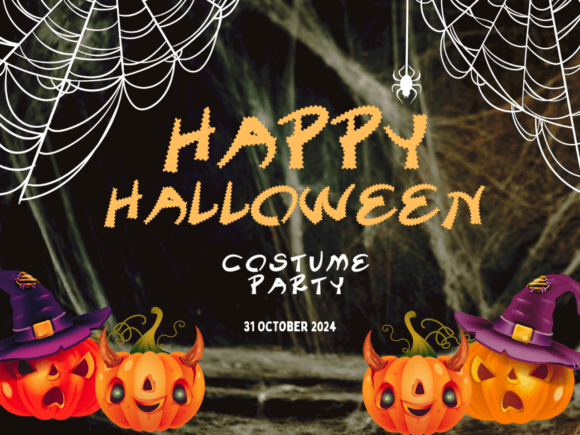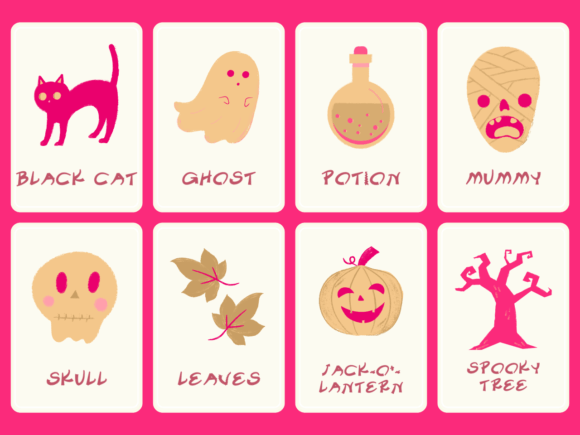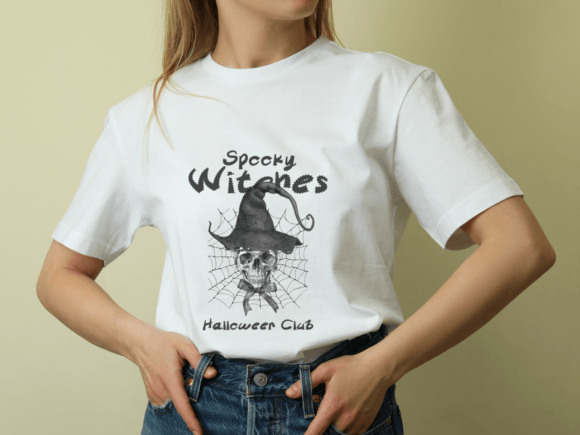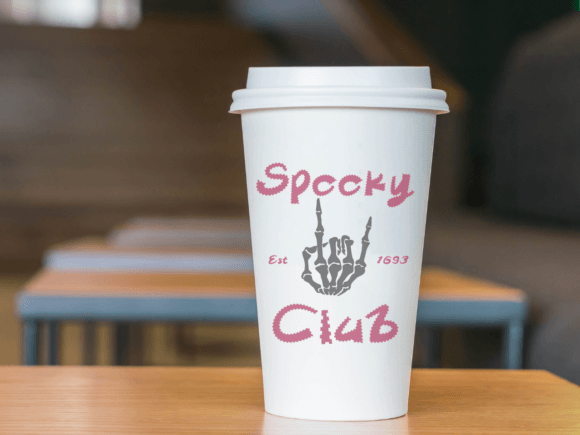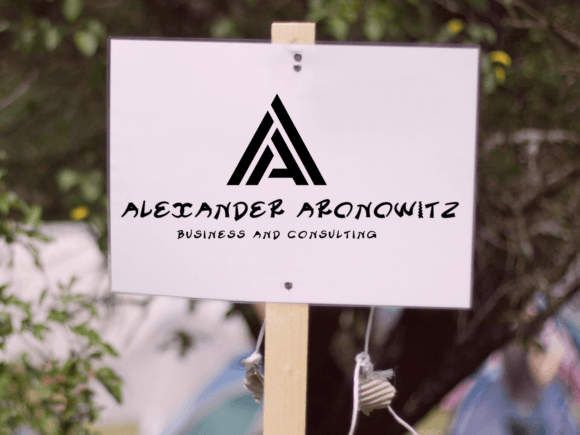
Introduction to Machiko Font
Have you ever been working on a creative project, and you just can’t seem to find the right font to bring your design to life? You’ve scrolled through countless design resources, downloaded free fonts, and tried out high-quality fonts, but nothing seems to fit the vibe you’re going for. That’s where the Machiko Font comes in – a quirky and versatile display font that’s sure to add a touch of personality to your next project.
With its unique blend of elegance and playfulness, the Machiko Font is perfect for designers who want to add a bit of whimsy to their designs. Whether you’re working on a branding project, a website, or a social media campaign, this font is sure to make a statement. And the best part? It’s available for free download, making it a valuable resource for designers on a budget.
Machiko Font
Honest Review: Machiko Font
I recently stumbled upon the Machiko Font while searching for a unique design resource to enhance my creative project. As a designer, I’m always on the lookout for high-quality fonts that can elevate my work, and I must say that Machiko Font did not disappoint. With its elegant and sophisticated design, this font is perfect for any project that requires a touch of sophistication.
Here are some things that I love about the Machiko Font:
- ✨ Beautiful and elegant design that’s perfect for creative projects
- ⚠️ Limited character set, which may not be suitable for large-scale projects or complex text
Overall, I’m really impressed with the Machiko Font, and I would definitely recommend it to designers who are looking for a high-quality, unique font for their creative projects. With its elegant design and transparent background, this font is a great addition to any design resource library.
Machiko Font
Tips for Getting the Most Out of Machiko Font
For a transparent background, use the font on a solid-colored background or overlay it on a photo. Experiment with different font sizes and colors to create visual interest.
Machiko Font is suitable for a variety of creative projects, including:
- Print materials